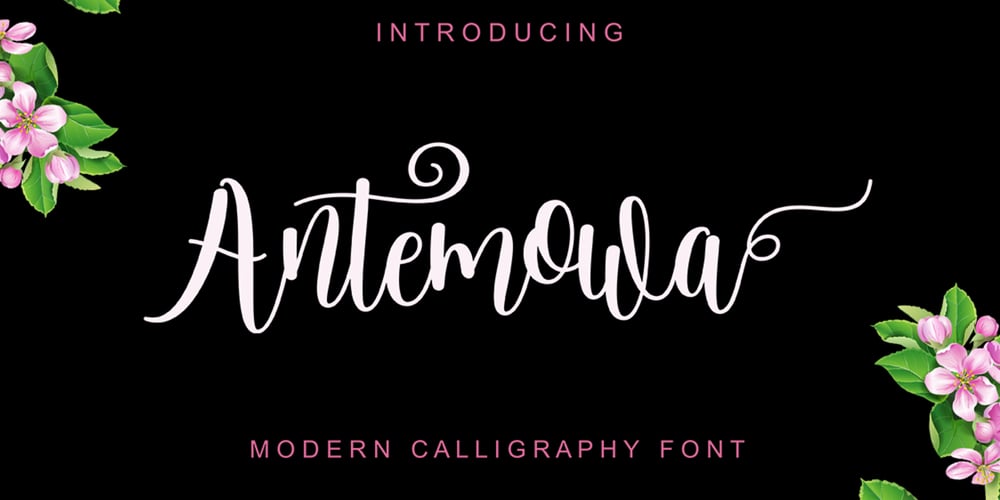
Antemowa Font Family was designed by khaidir and published by Gatype. Antemowa contains 1 styles and family package options. Antemowa is modern script font, where every single letter has been carefully crafted to make your text look beautiful. With a modern script style, this font will perfect for many different project such as: quotes, blog headers, posters, weddings, branding, logos, fashion, apparel, letters, invitations, stationery, and more. This font includes alternate glyphs and beautiful swirlsHow to access alternate glyphs:Windows Character Map: https://www.youtube.com/watch?v=BScPsiubM1kAdobe Illustrator: https://www.youtube.com/watch?v=y5XTaWYwWA4Thanks for looking.